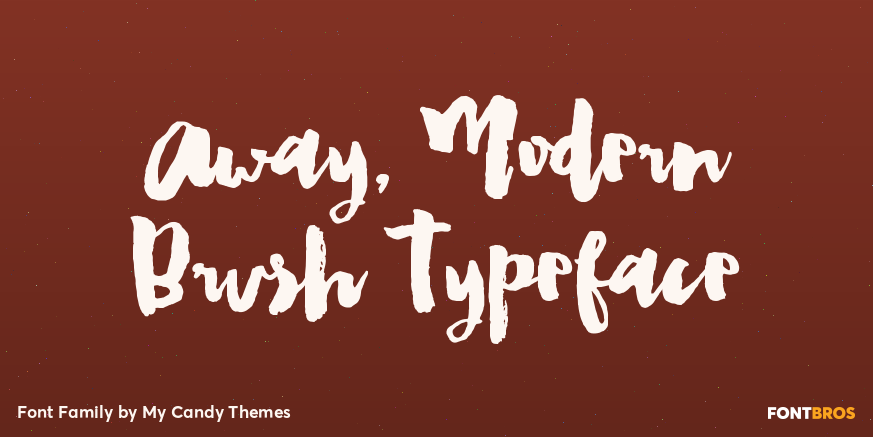
Away, Modern Brush Typeface
About Away, Modern Brush Typeface
The Away family! Three bold, modern, irregular, abstract, brush scripts, beautiful for art quotes, titles, hand drawn style logos, watercolor themes, blog headers, typography art, invitations, DIY projects, scrapbooking, nursery decor design, wall art…